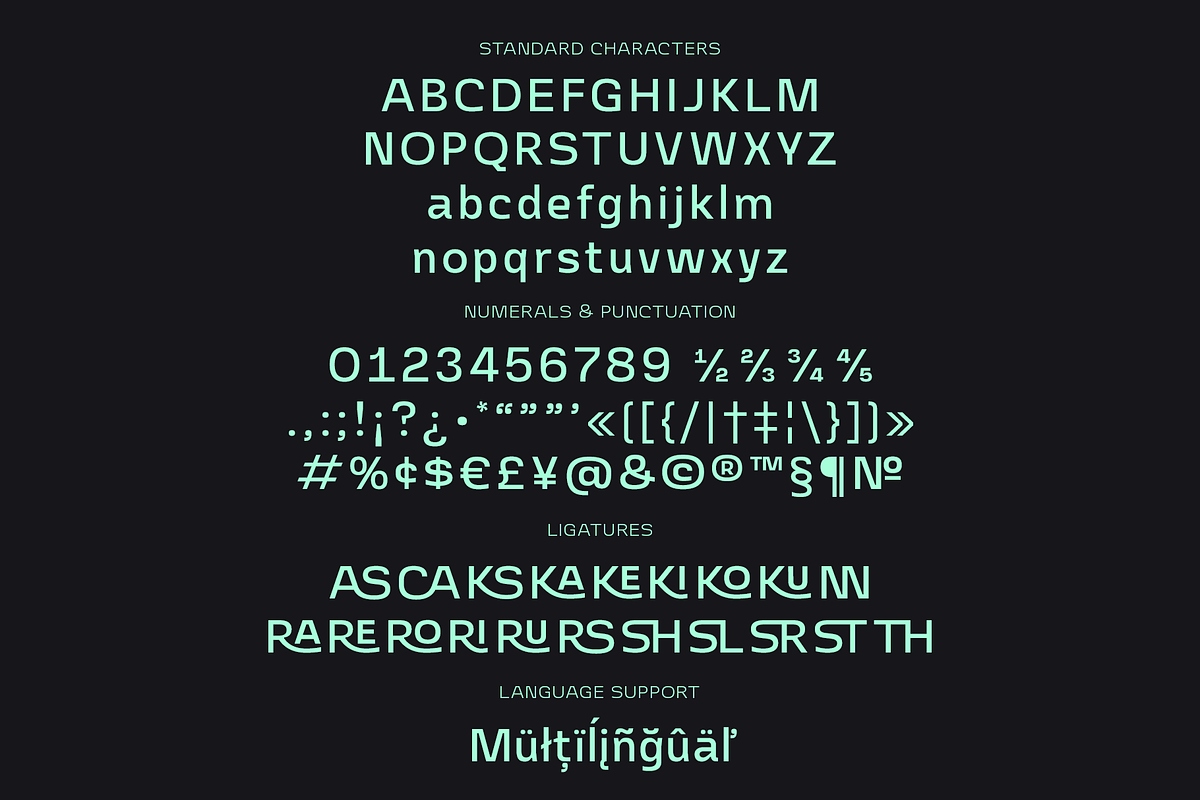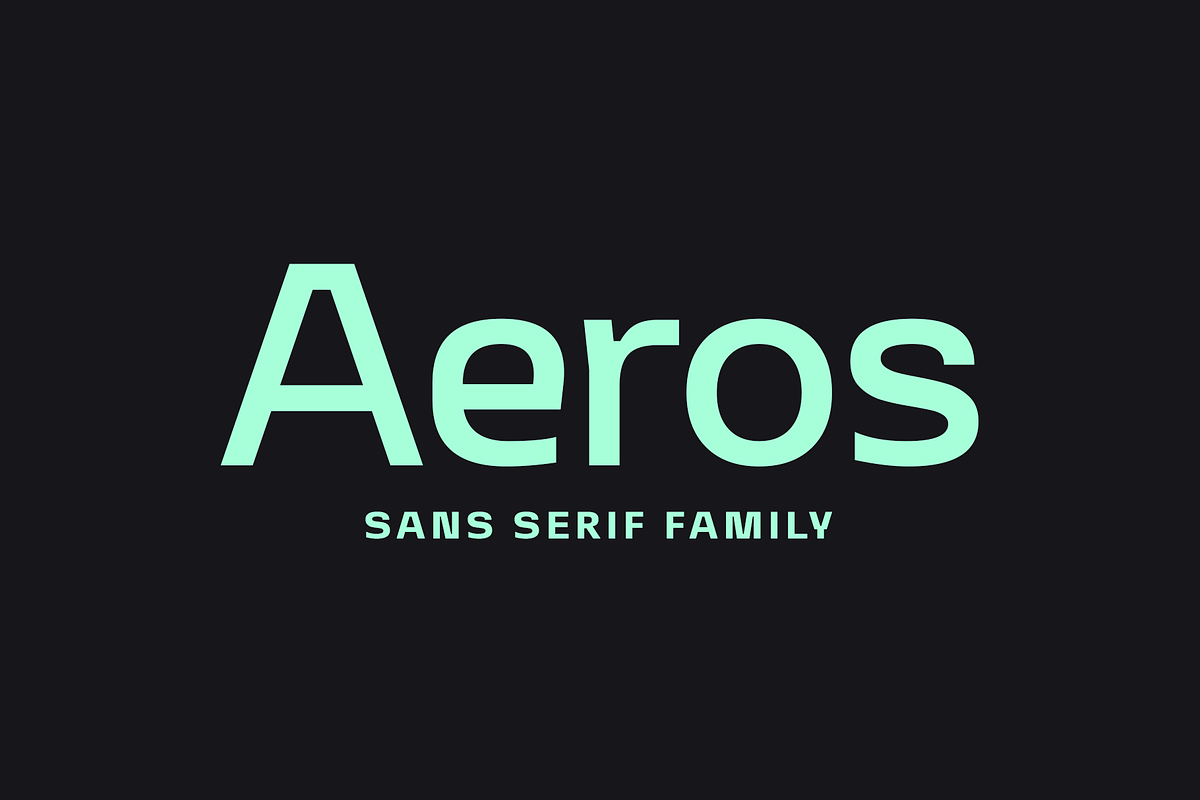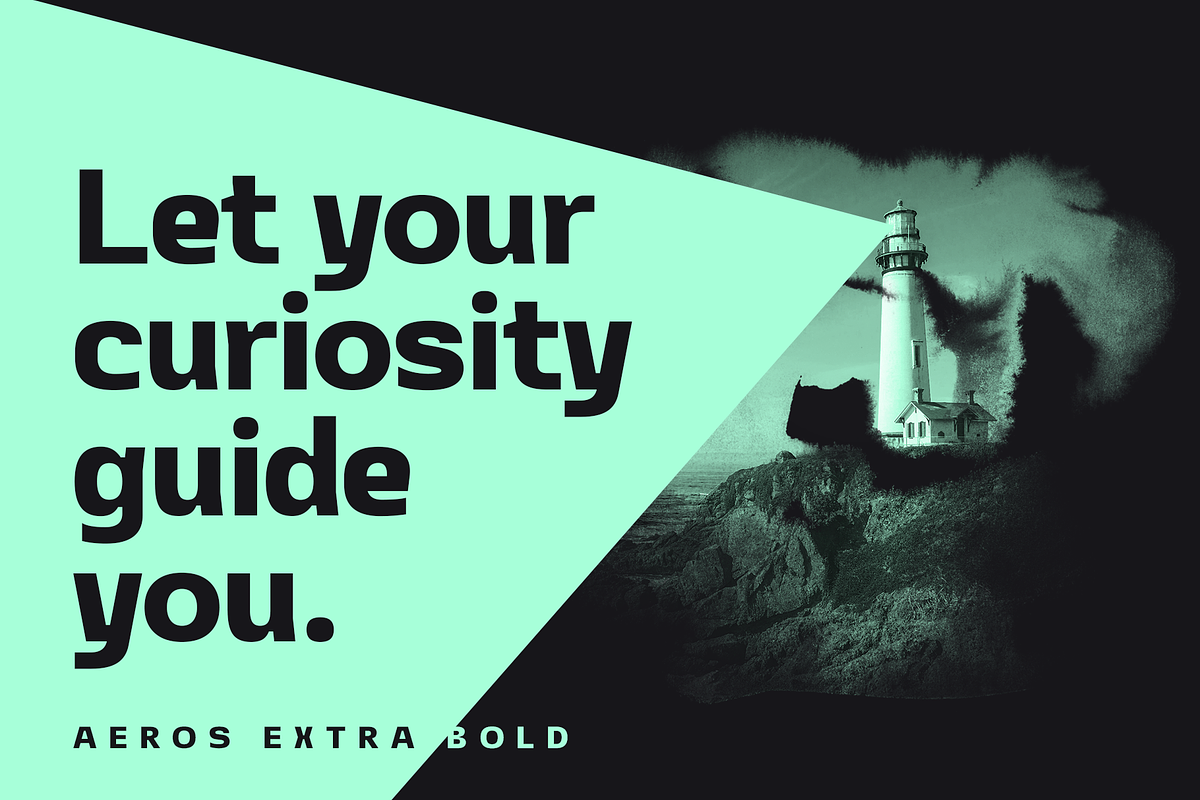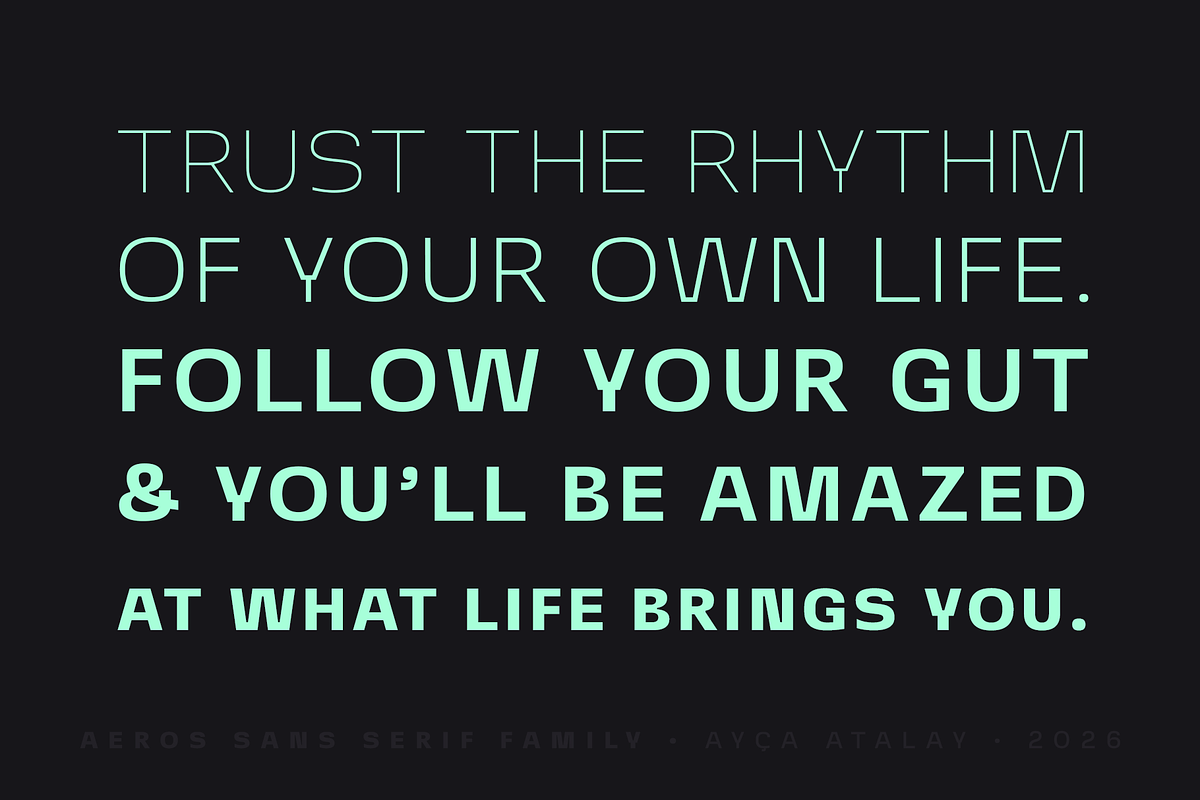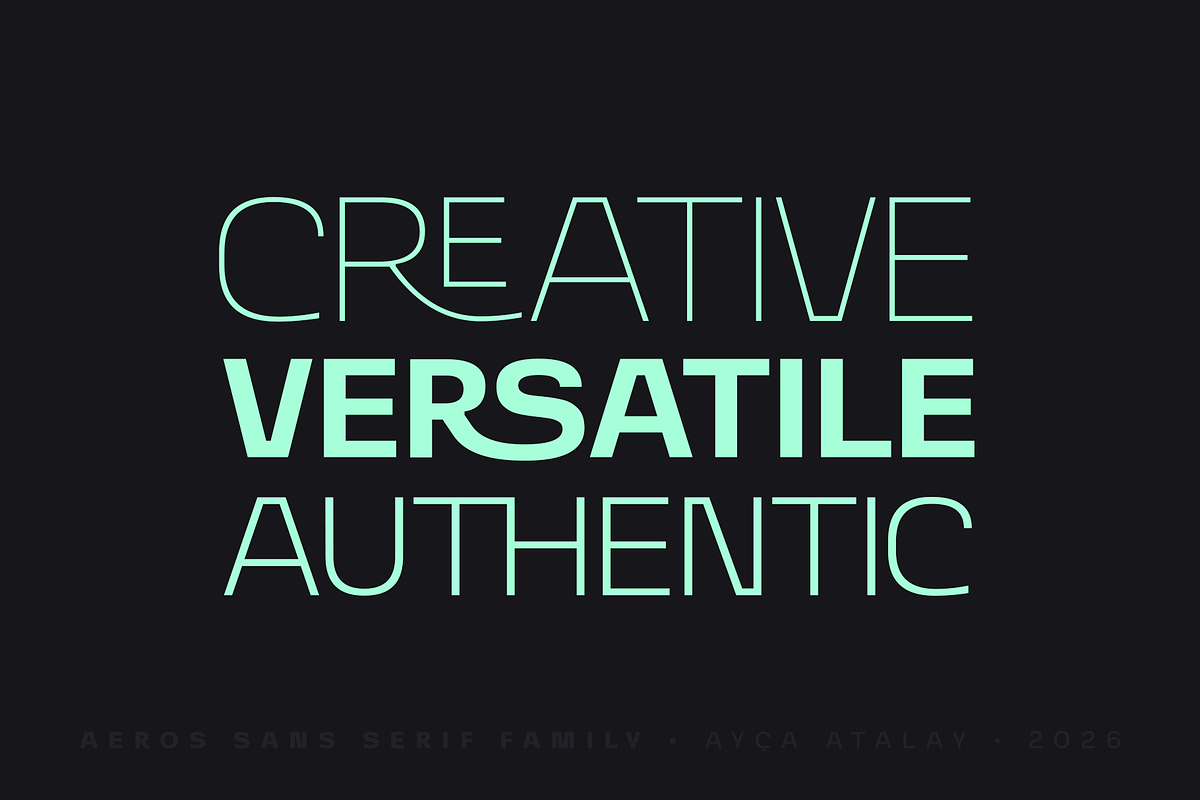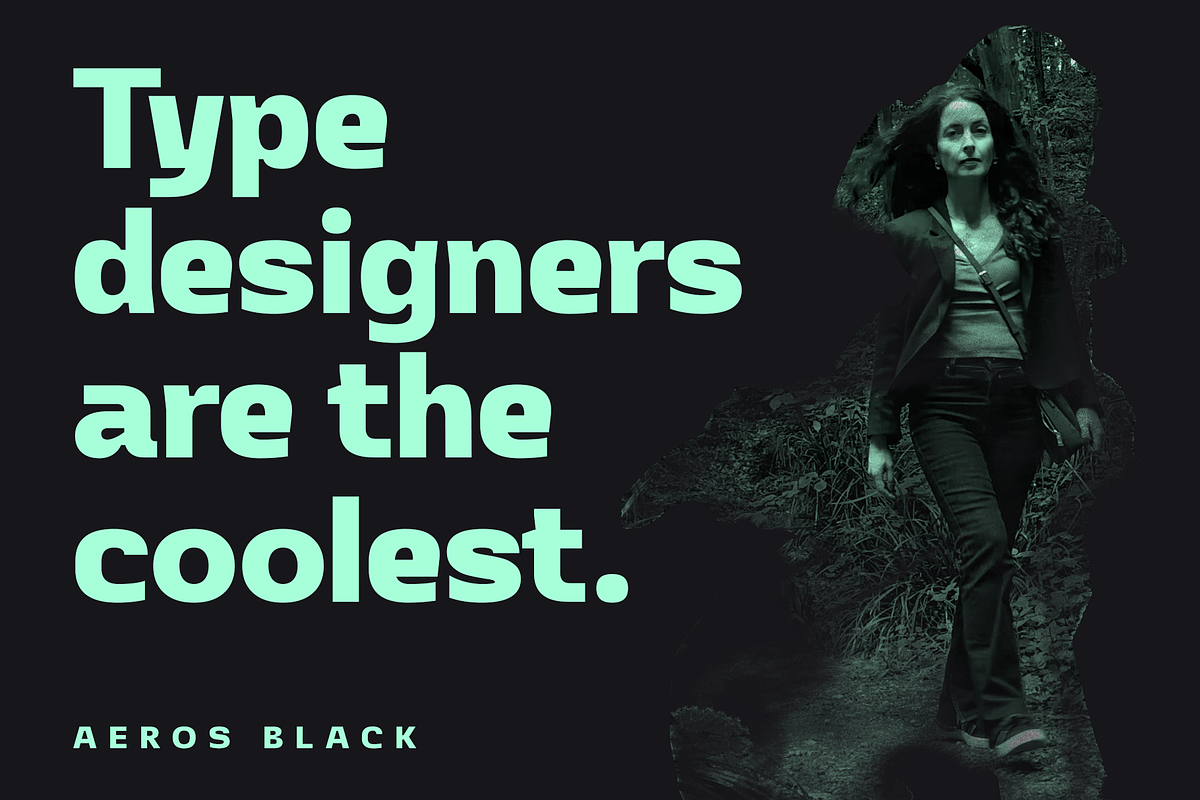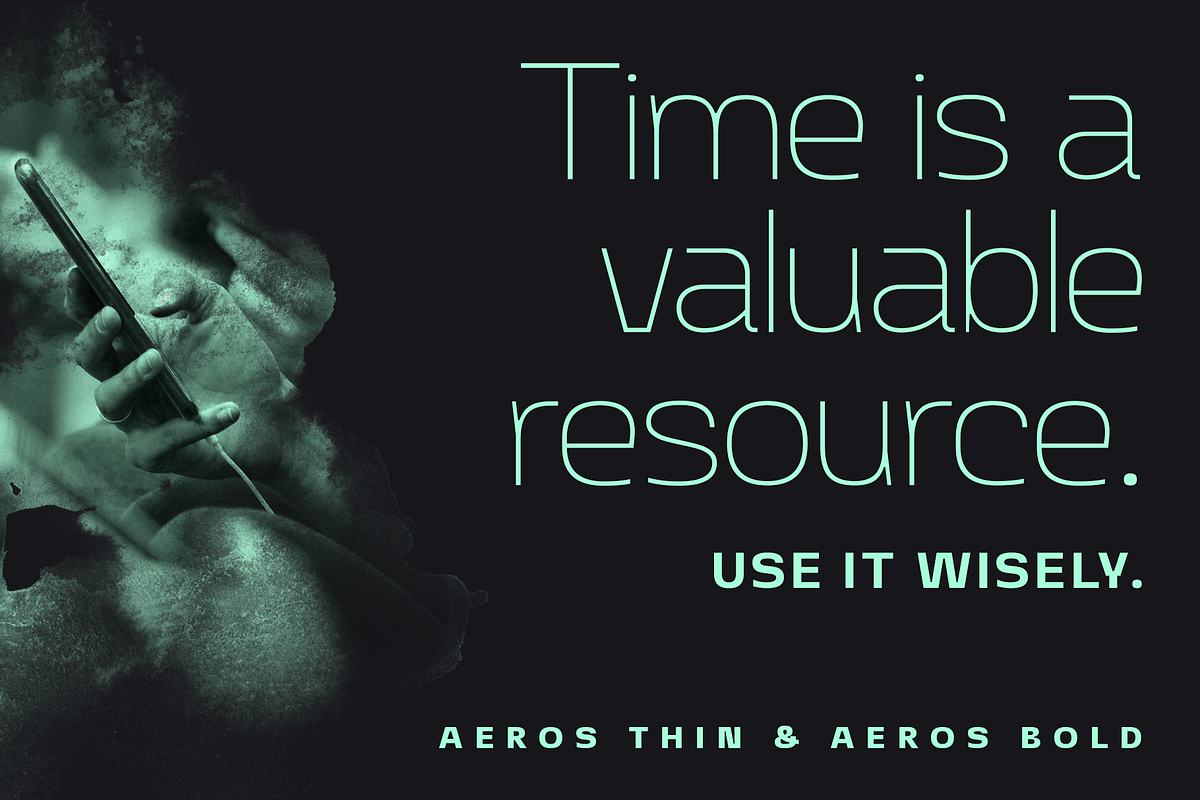
Aeros | Sans Serif Family
Aeros is a modern workhorse sans serif typeface that combines strength and reliability with versatility. Available in 8 weights ranging from thin to black, it strikes the perfect balance in the Goldilocks zone: neutral yet engaging, visually appealing without being overpowering.
This typeface features a set of discretionary ligatures, adding a creative flair when desired. It is ideal for various applications such as branding, packaging, and user interfaces.
Standard Characters
Numerals & Fractions
Full Set of Punctuation Marks
Standard & Discretionary Ligatures
8 Weights (Thin to Black)